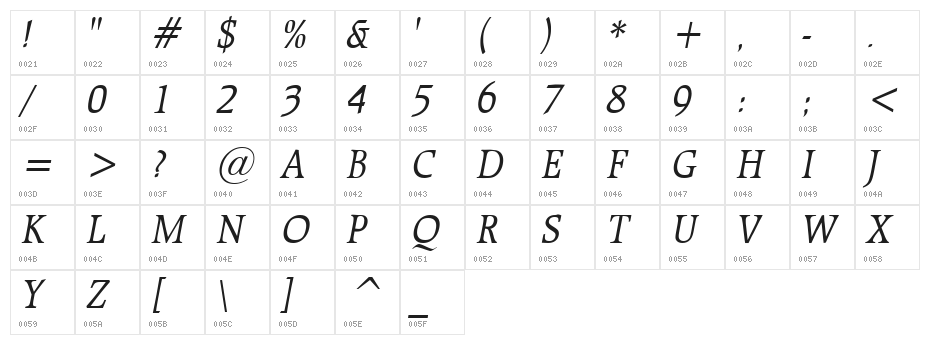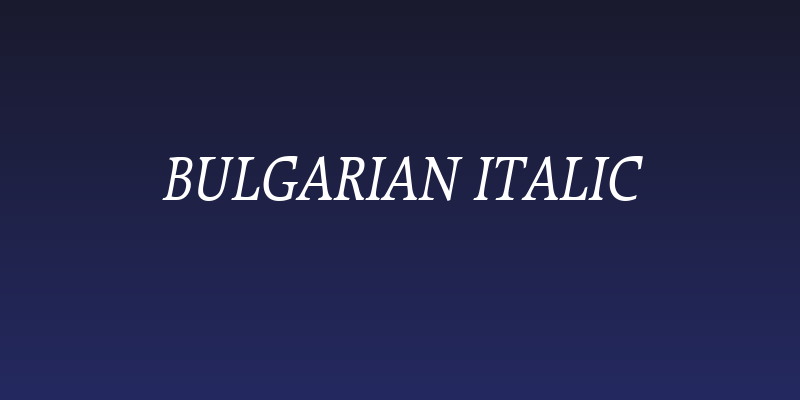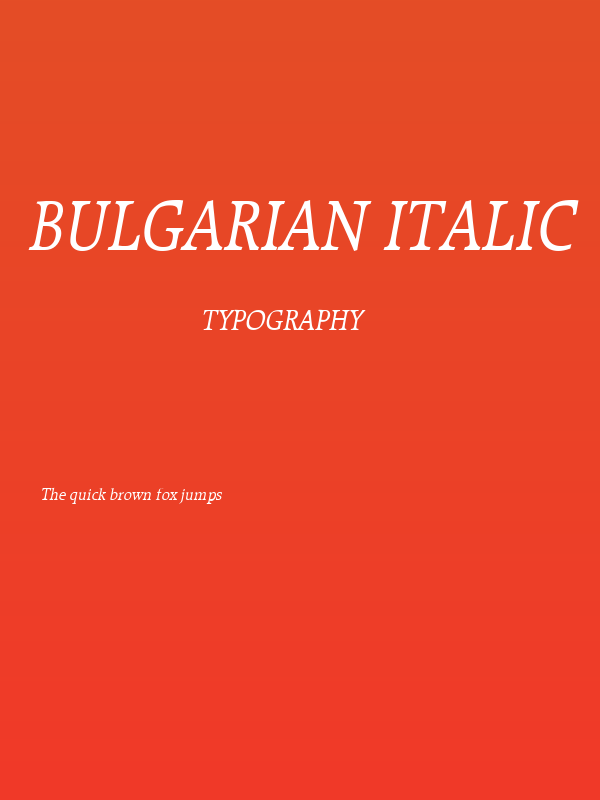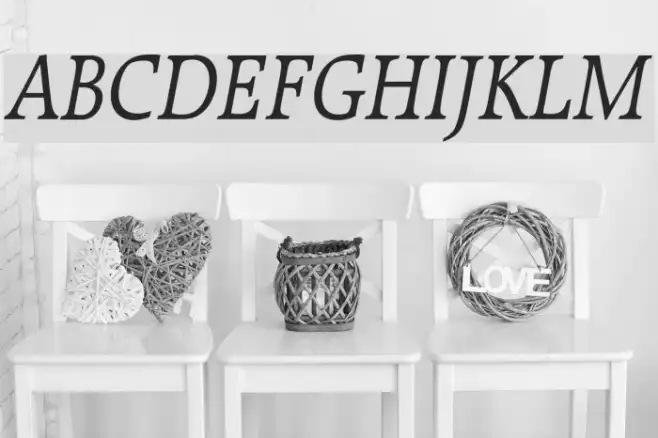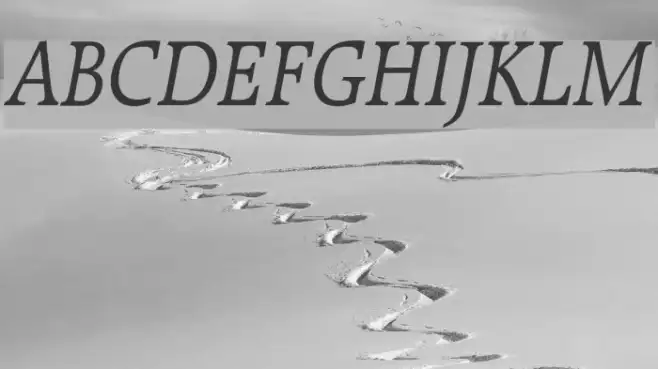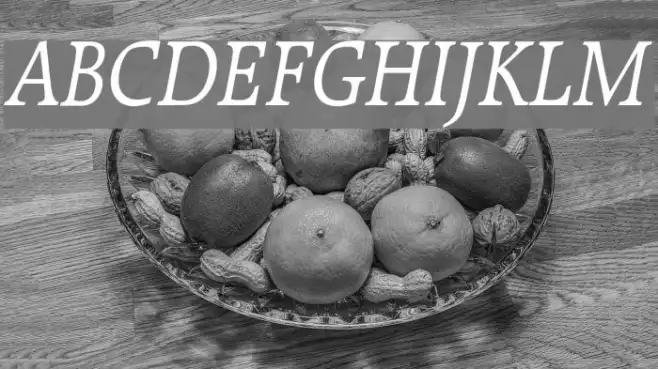
Bulgarian Italic Font
Bulgarian Italic Description
This font exhibits a classic italic style with a distinct slant, providing a sense of elegance and fluidity. The characters are well-proportioned, featuring a moderate contrast between thick and thin strokes, which enhances readability while maintaining a sophisticated appearance. The serifs are pronounced yet refined, contributing to the font's traditional aesthetic. It is suitable for a variety of applications, from formal documents to creative projects, where a touch of elegance is desired. The numerals and special characters are consistent with the overall design, ensuring uniformity across different uses.
| Proposed Projects | Ideal for formal invitations, elegant branding, book covers, and editorial design. |